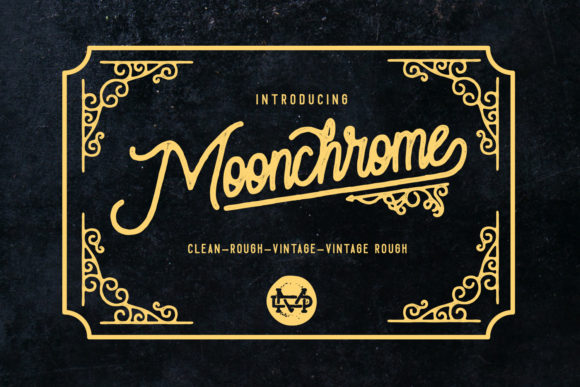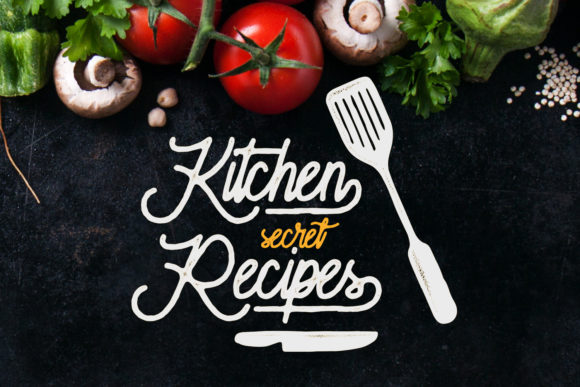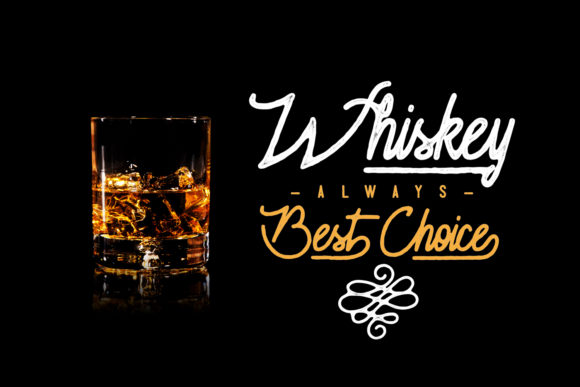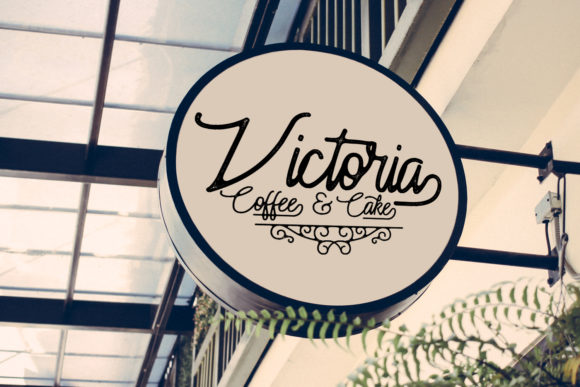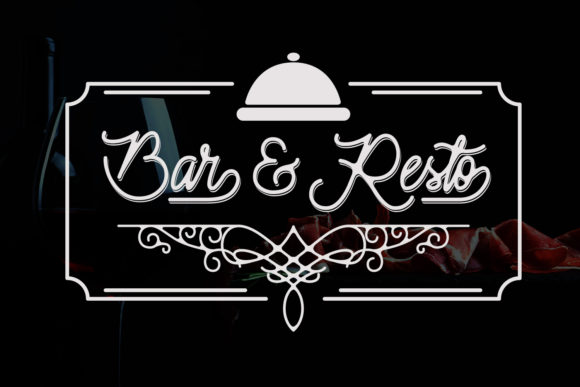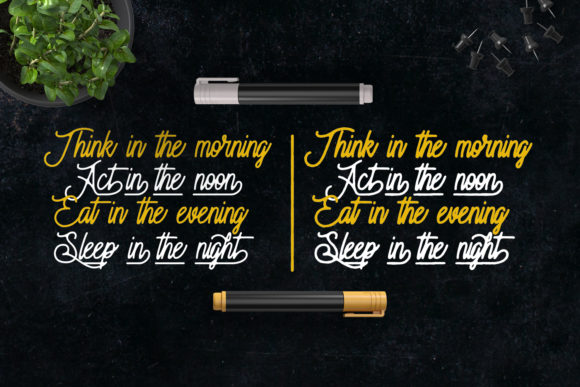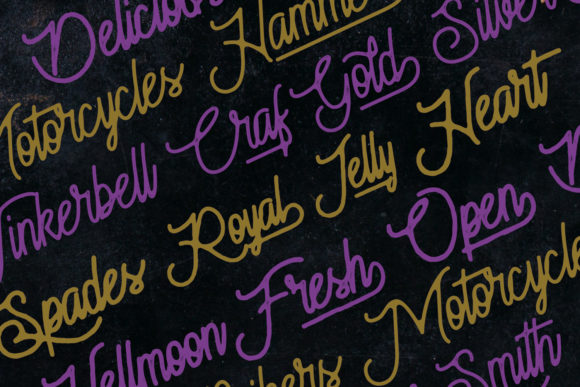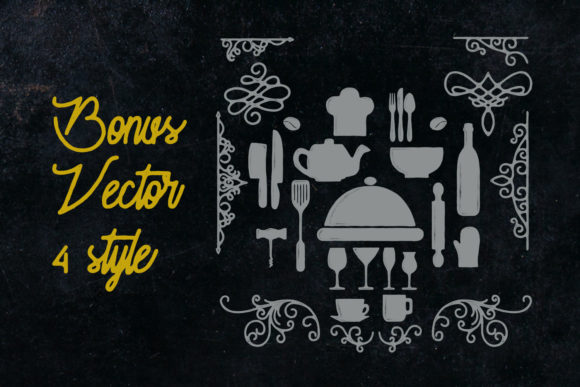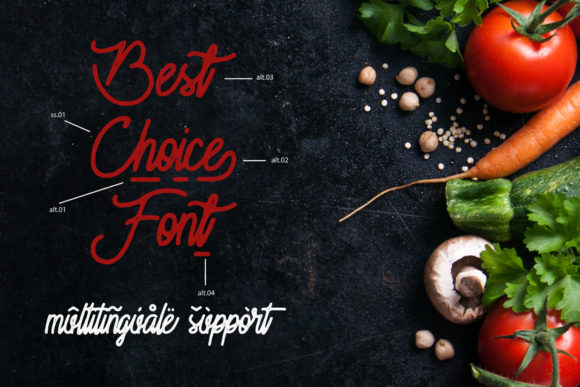
Moonchrome Font
About Moonchrome Font
Moonchrome is a cute and bold handwritten font with an amazing feel. It will add a unique charm to any design project!